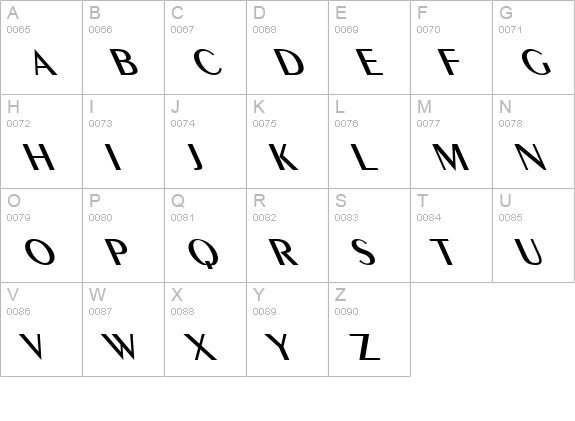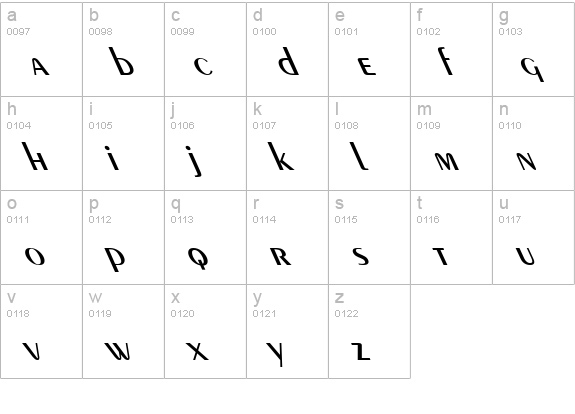
Exotic Demi Lefty Font Details
Exotic Demi Lefty is a sub-bold, structured variant in the Exotic typeface family \xE2\x80\x94 well suited to sub-headlines and emphasised passages.
Exotic Demi Lefty font is a unique and eye-catching typeface that combines exotic flair with a touch of whimsy. Its bold and slanted design gives it a dynamic and modern look, perfect for making a statement in your designs. The intricate details and stylish curves of this font add an exotic touch to any project, making it stand out from the crowd. What makes Exotic Demi Lefty font even more appealing is that it is available for free download at FontsMarket.com. This means that you can easily add this stunning font to your collection without any cost. Whether you're creating posters, logos, invitations, or any other design project, Exotic Demi Lefty font is sure to elevate your work and leave a lasting impression. Download it today and let your creativity soar with this exotic and free font!